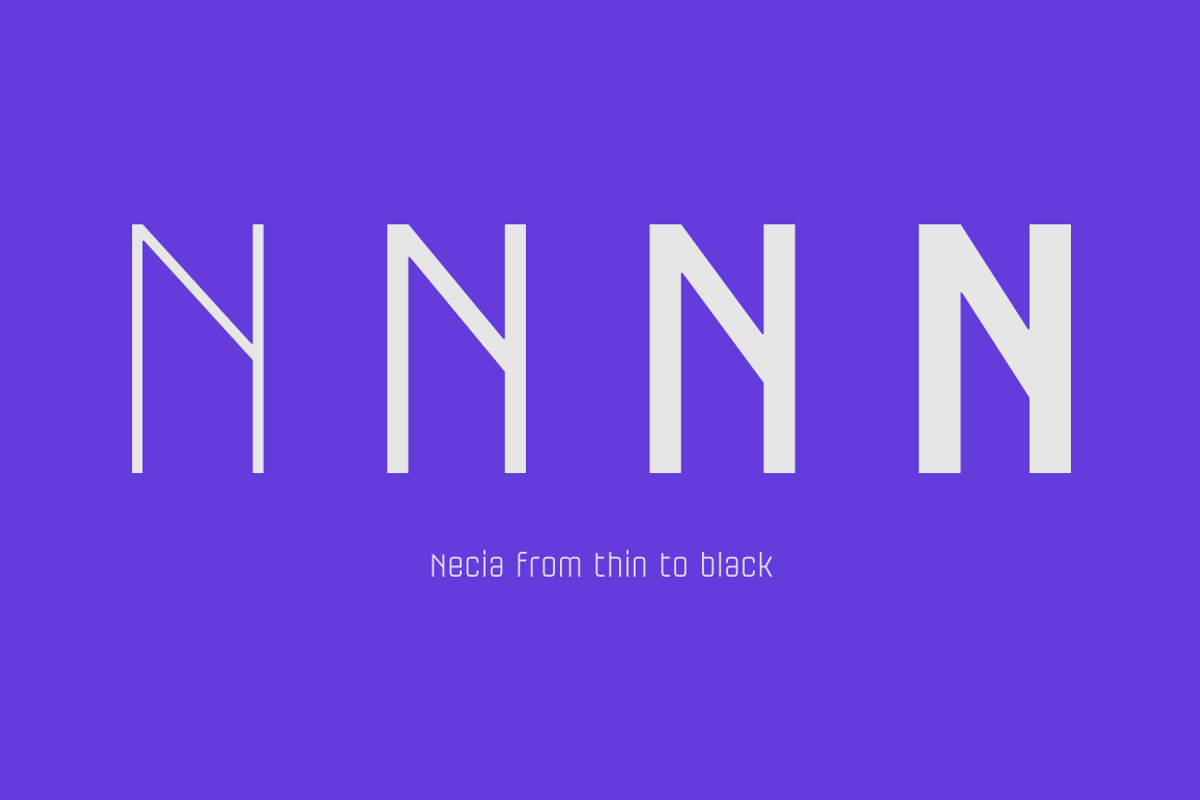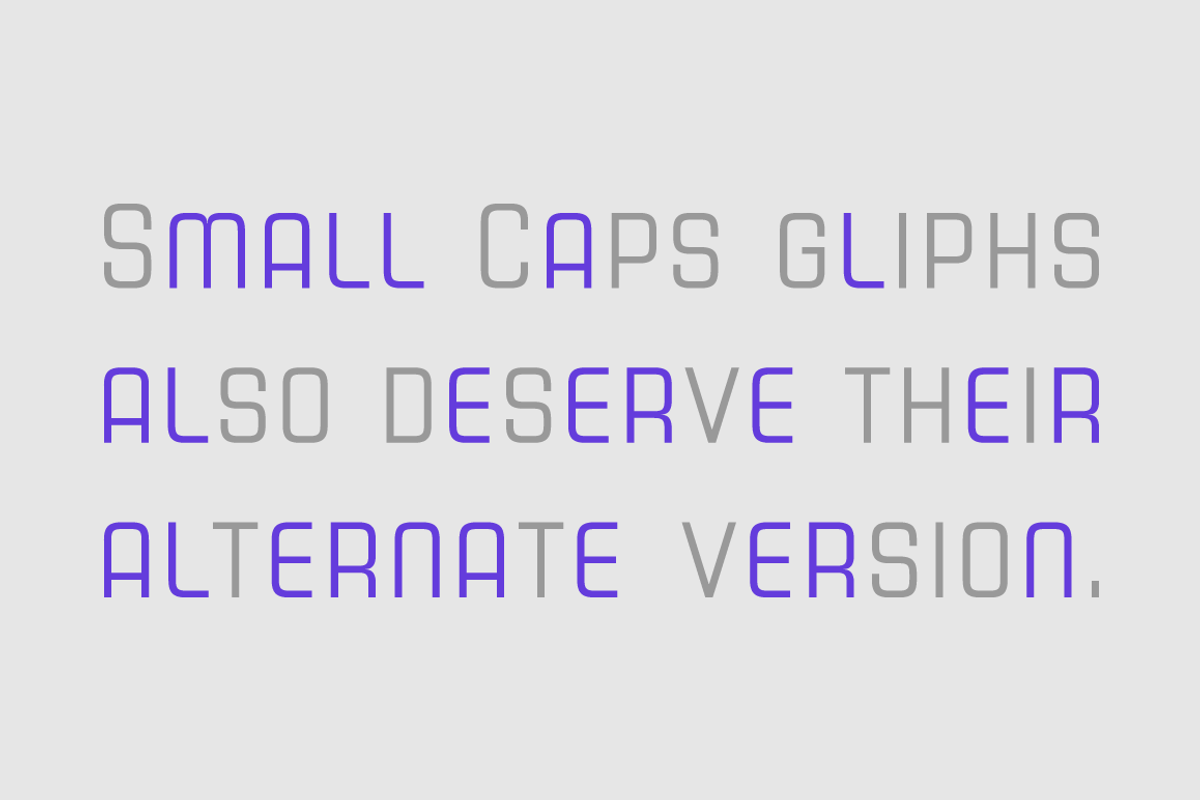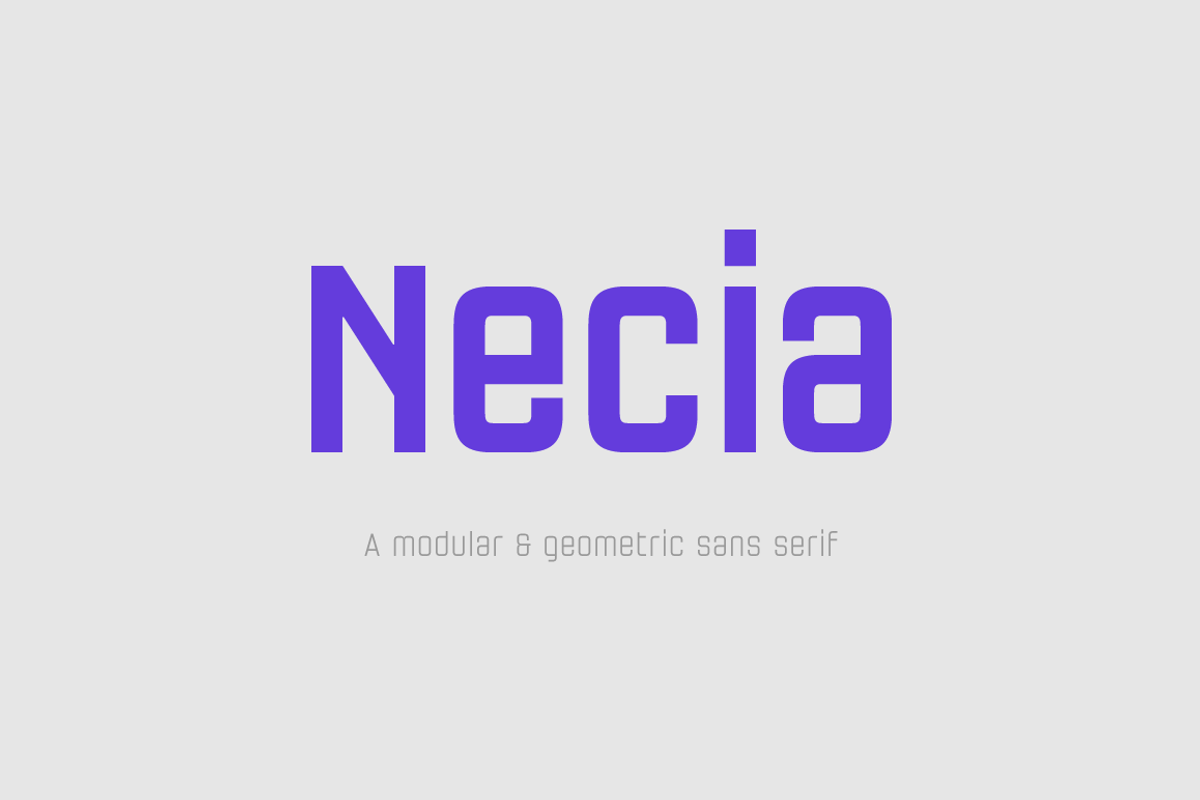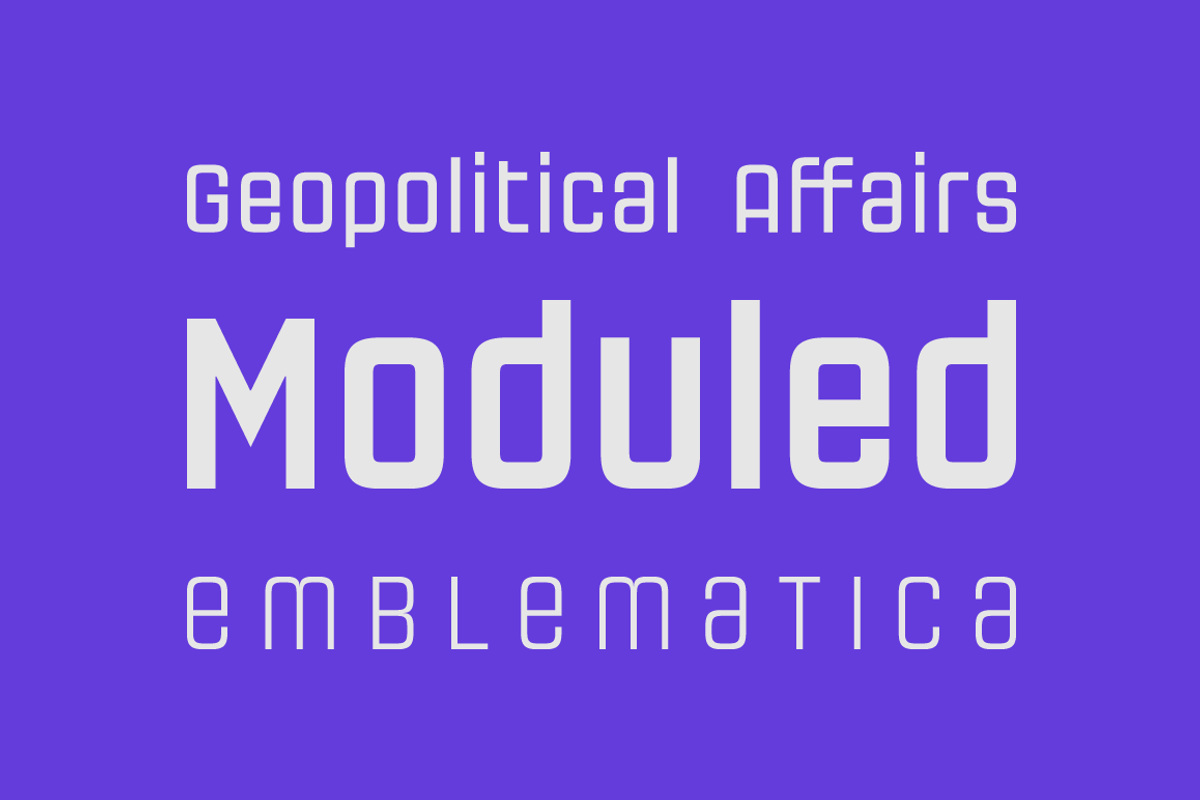
Necia Font Family
Necia Font Family by Graviton Font Foundry is a font selected for branding, posters, packaging, typography.
- Each containing small caps and several alternate characters.
Why Necia Font Family is worth a look
Necia Font Family by Graviton Font Foundry fits naturally into Branding, posters, packaging, typography.